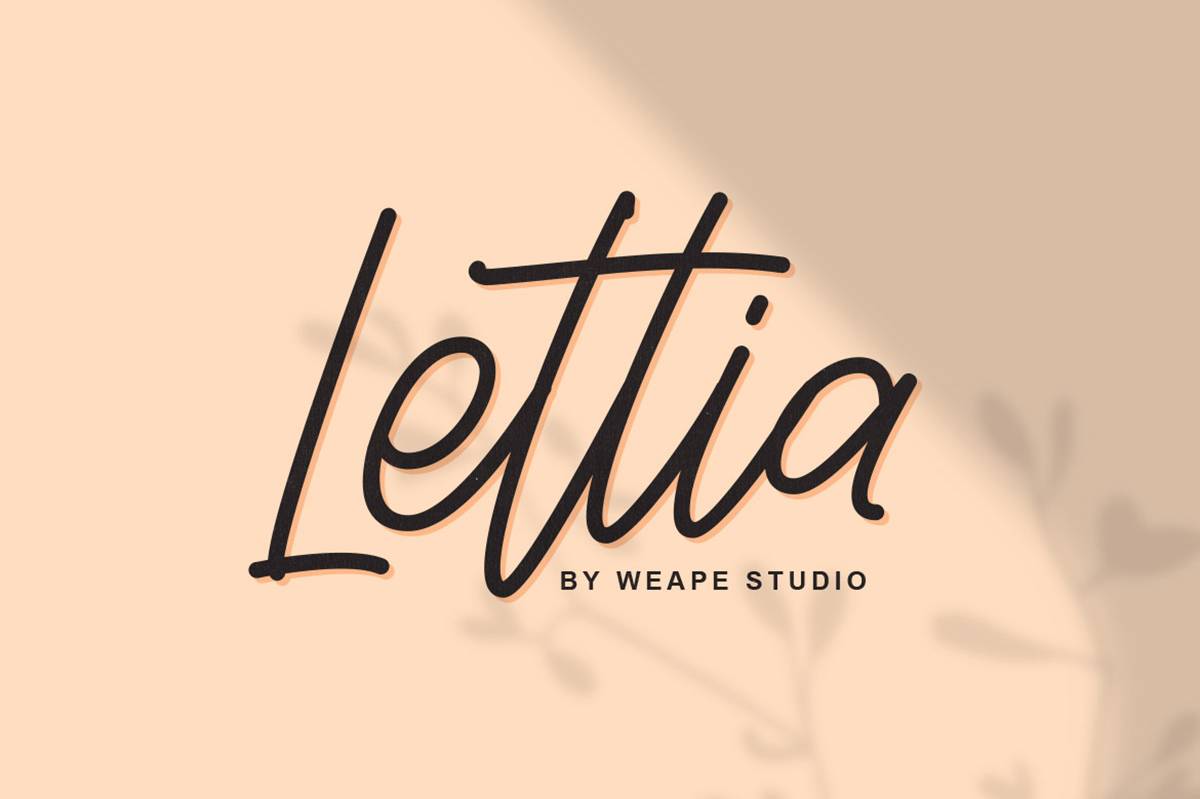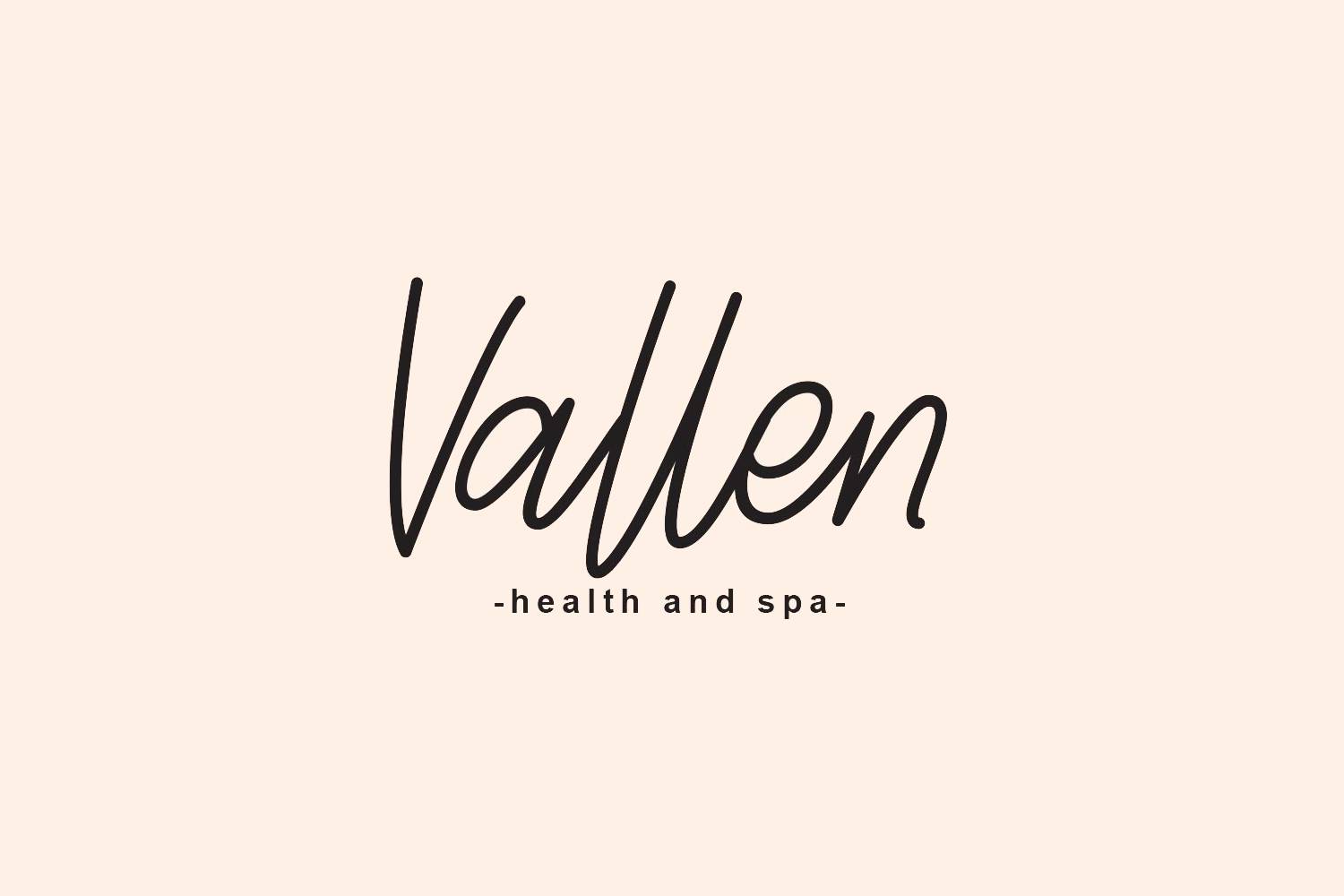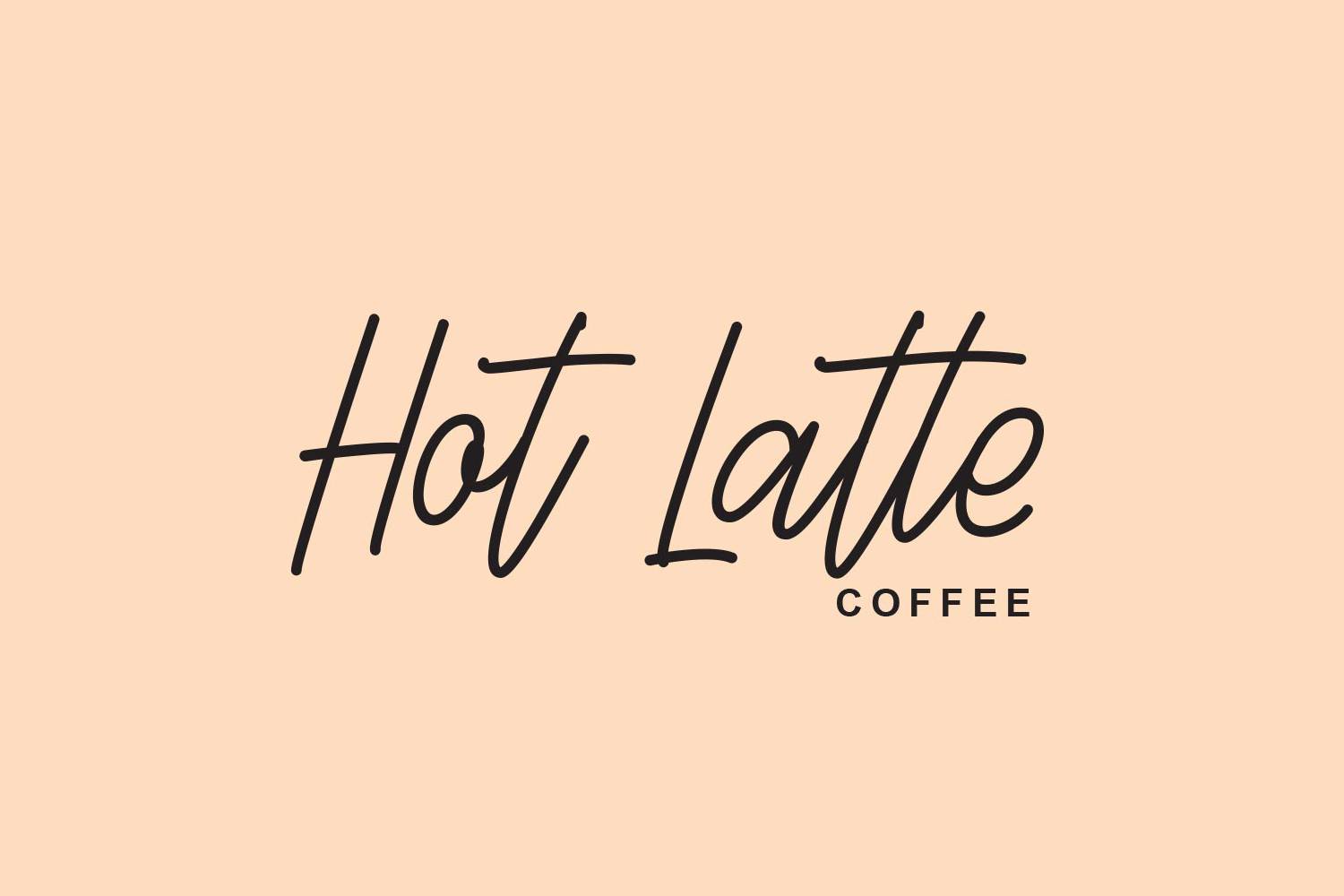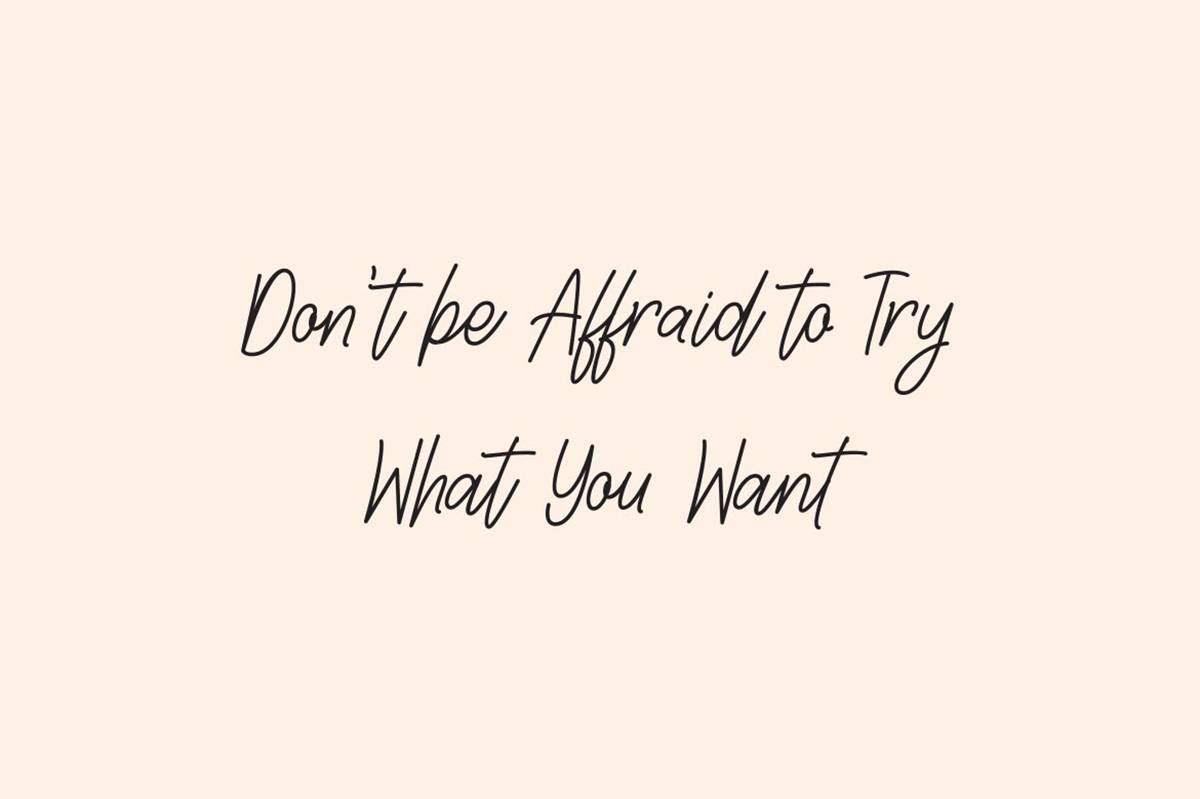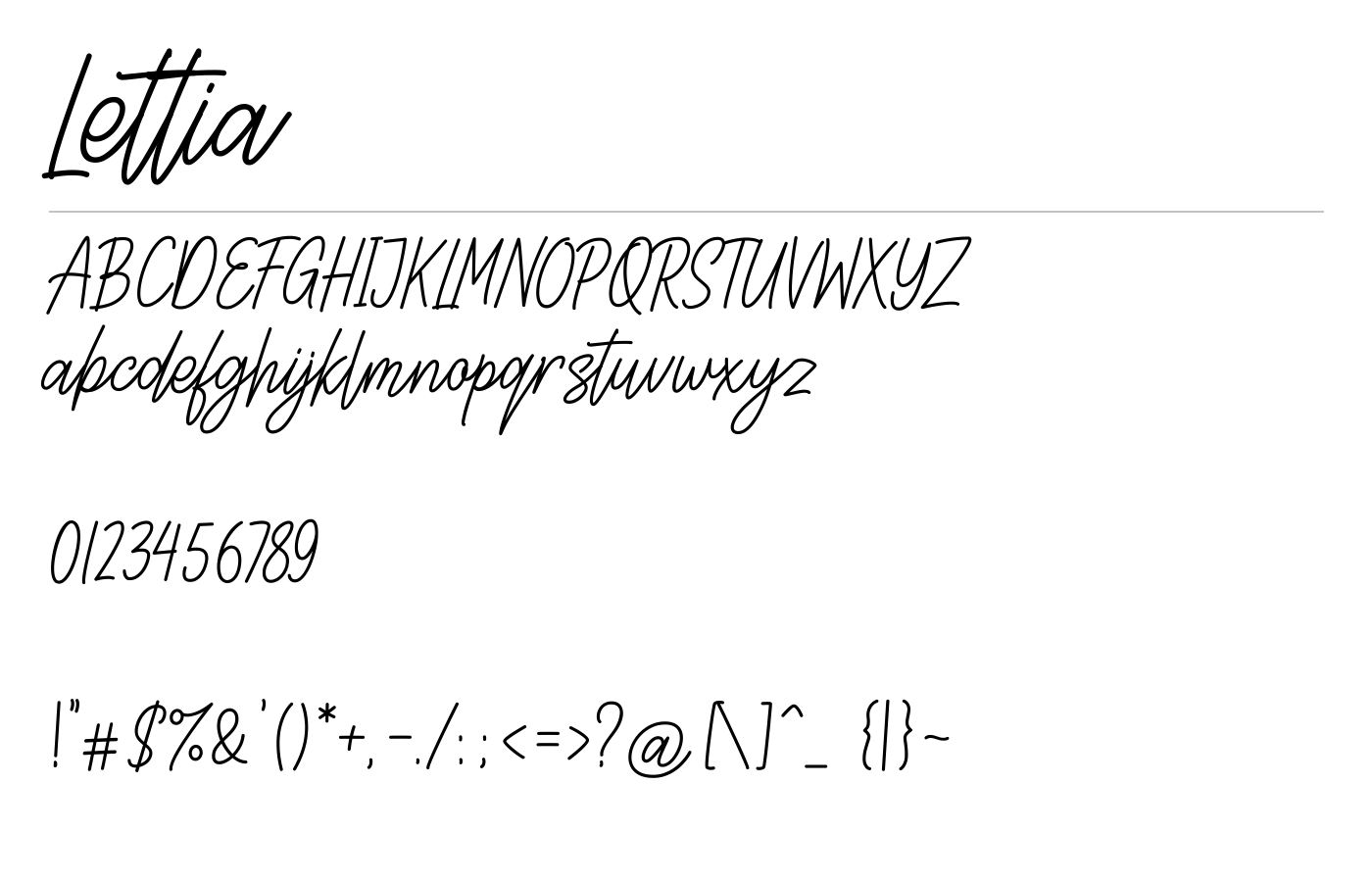
Lettia is a slender, elegant script font characterized by its flowing, handwritten style and graceful, slightly condensed letterforms. Its delicate strokes and natural, casual flair make it perfect for creative branding, invitations, and stylish headlines where a personal, sophisticated touch is desired. This font imbues designs with warmth and charm, ideal for fashion, lifestyle, and artistic projects.
Lettia Font
About Lettia Font
| Font family | Lettia Font |
| Release date | 2019-01-28 |
| Designer | Weape Studio |